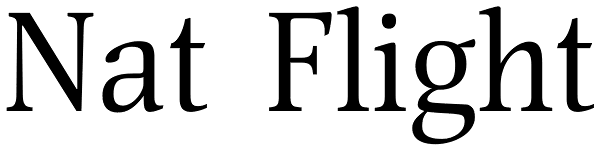
Nat Flight
This elegant family of fonts, suitable for both text and display, is narrow in fit and characterized by a unique feature: in the capital B, P, and R, the stroke of the bowl does not quite meet with the stem. The design is noticeably calligraphic...